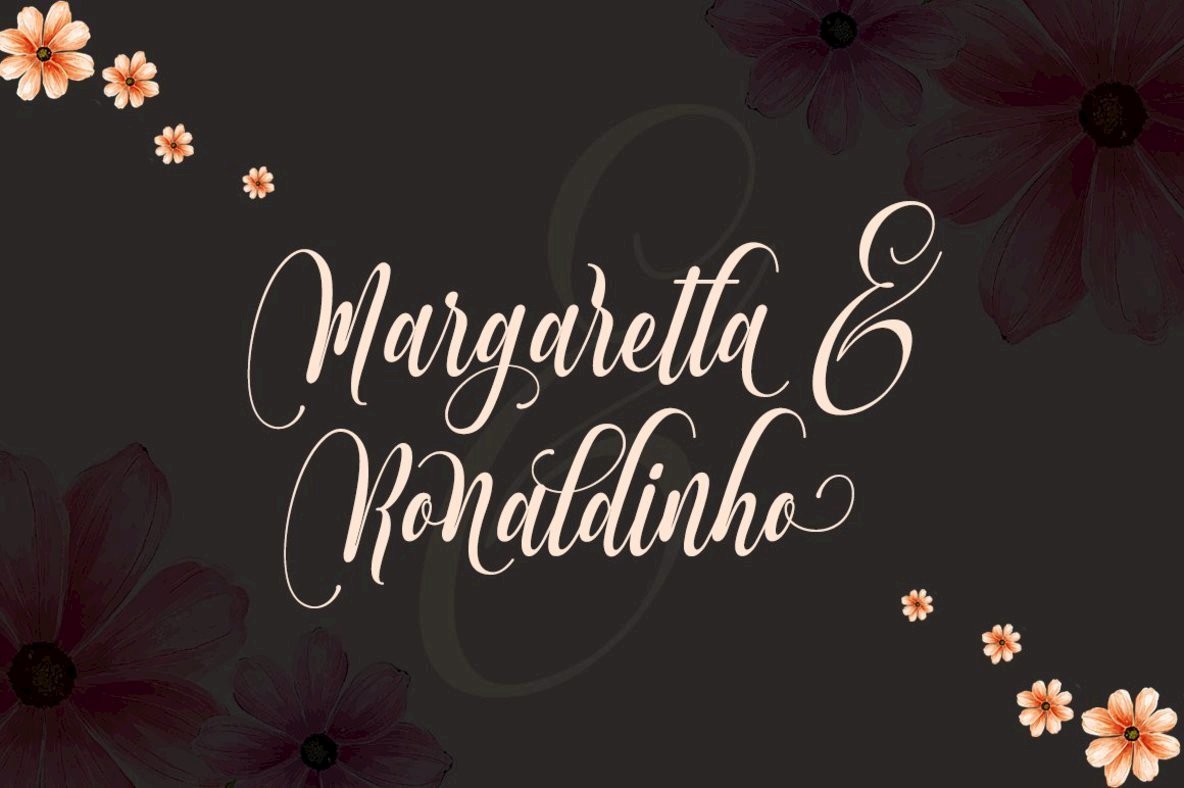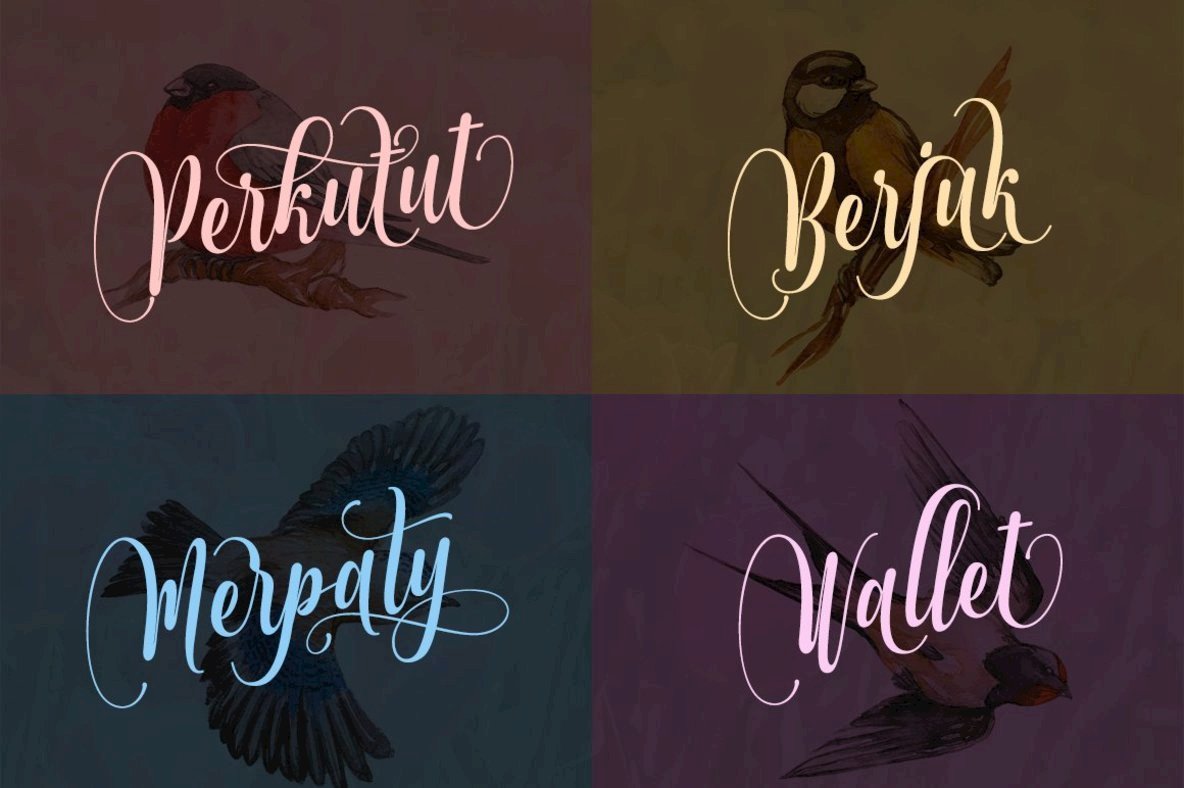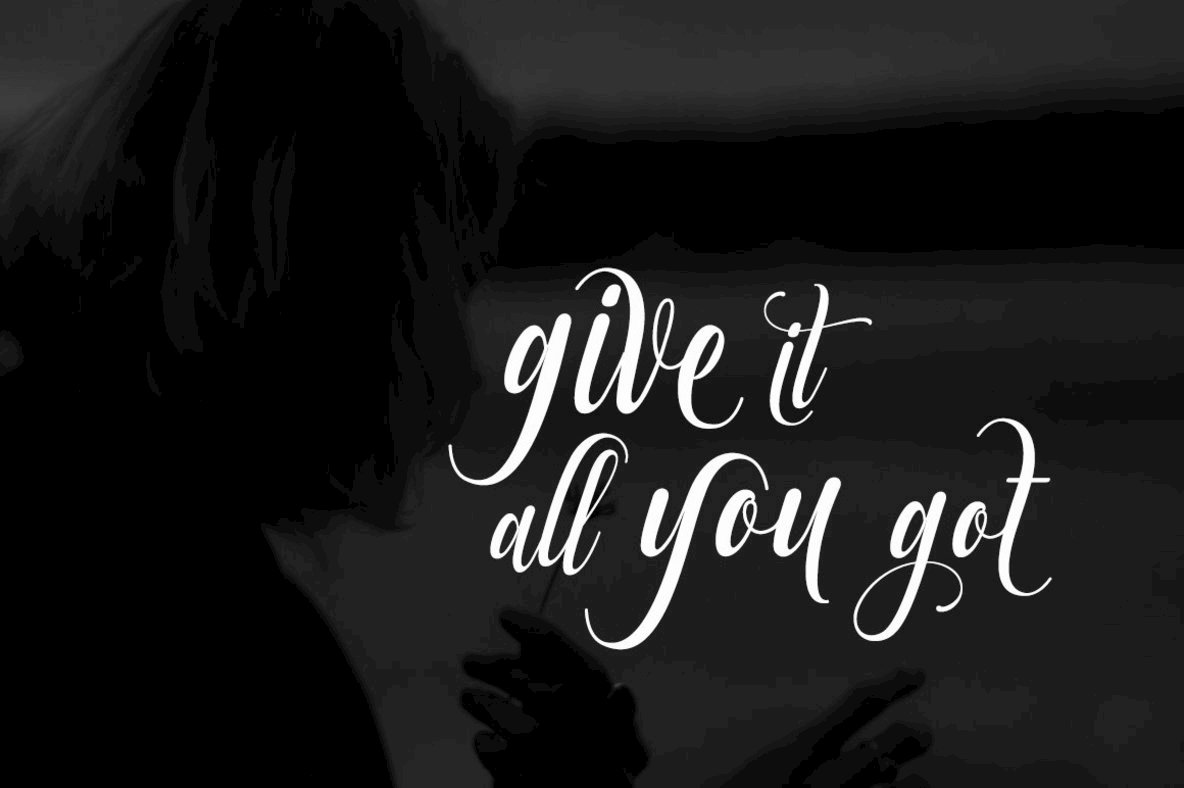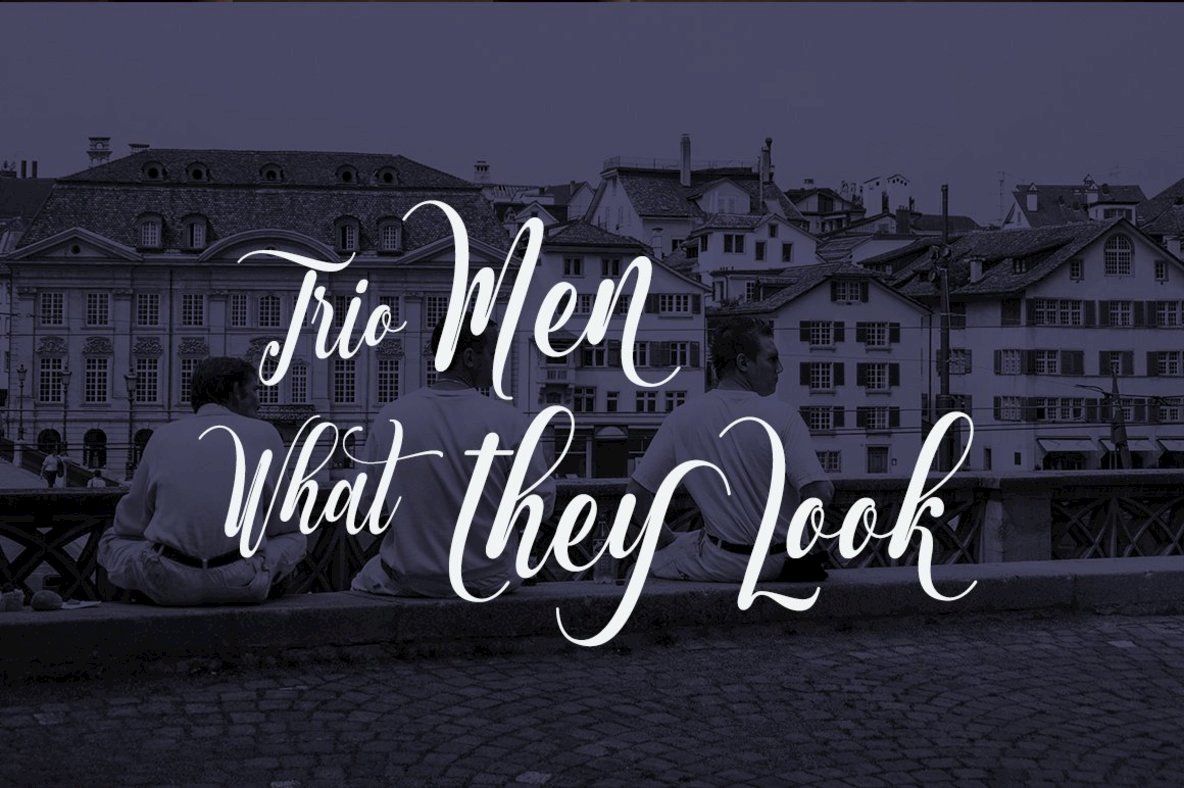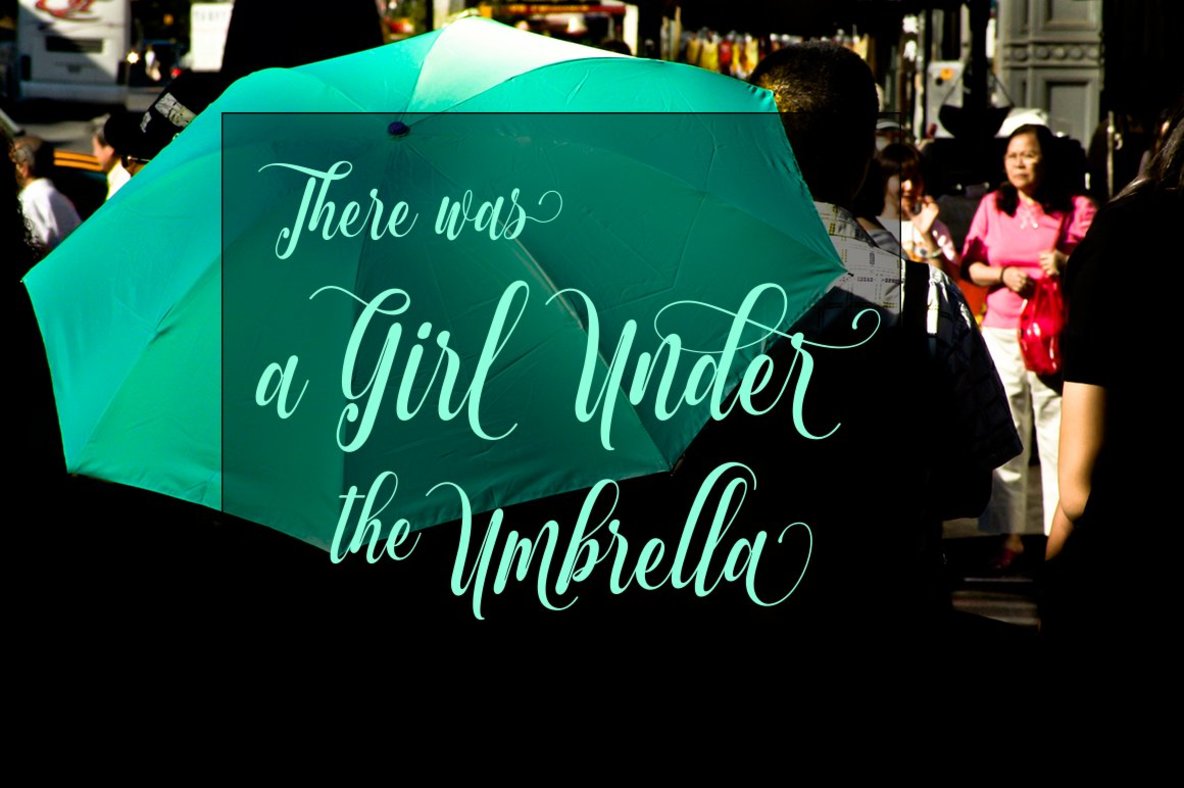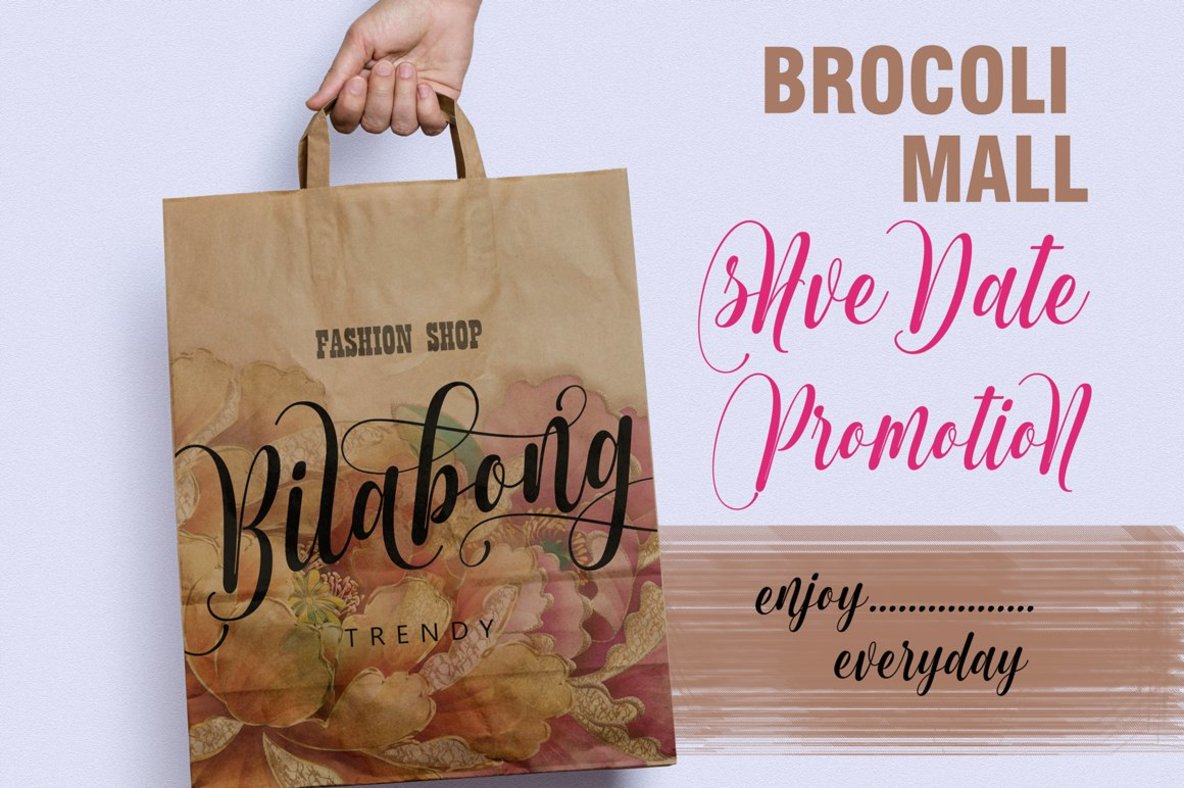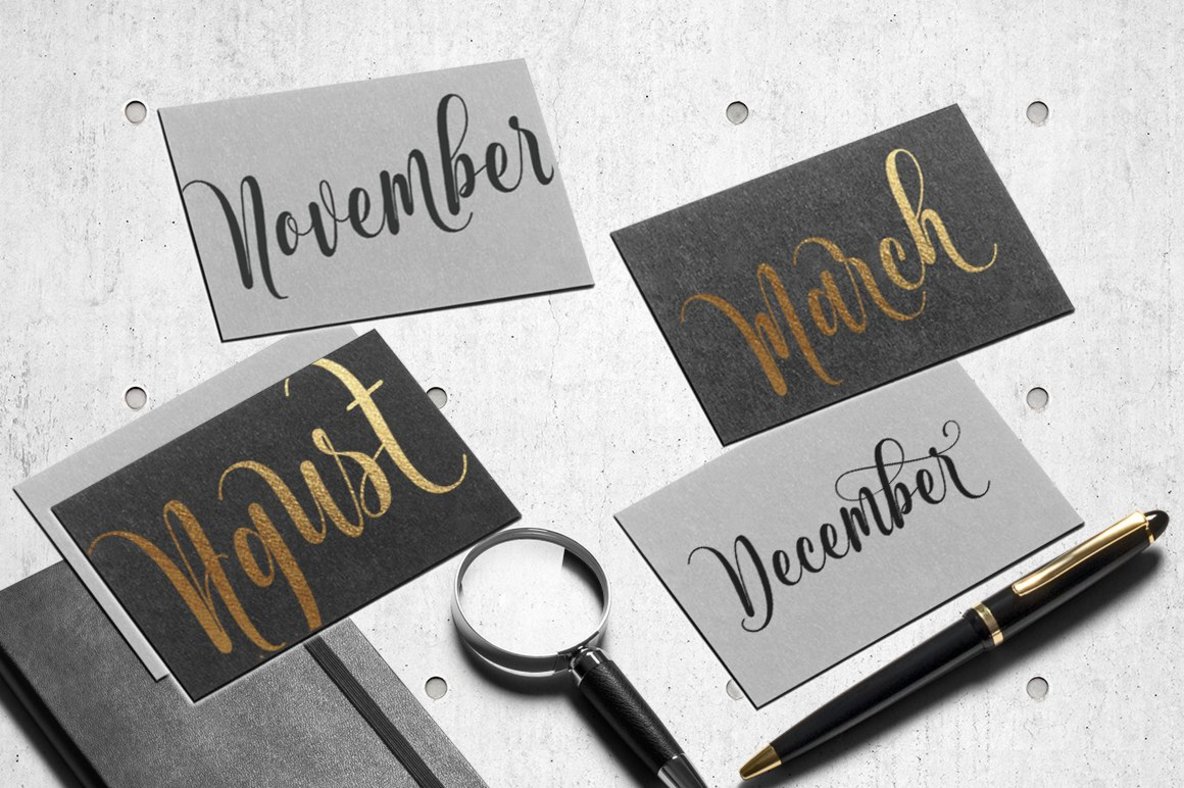
Muthya Font
Experience the elegance of handwritten artistry with Muthya, a font that captures the fluid movement of a dancer. This unique style infuses calligraphy into modern design, making each character a dynamic element of your creative projects. Ideal for a plethora of design applications, Muthya brings a touch of sophistication to logos, invitations, and more. Muthya's comprehensive support encompasses a wide range of European languages rooted in the Latin alphabet, including French, German, Italian, and many more. It's perfectly suited for diverse projects, whether you're designing a headline, logo, wedding invitation, or other creative works. To leverage Muthya's full potential, use software with OpenType feature support such as Adobe Illustrator, Adobe InDesign, or CorelDraw.Muthya: A Graceful Calligraphic Delight